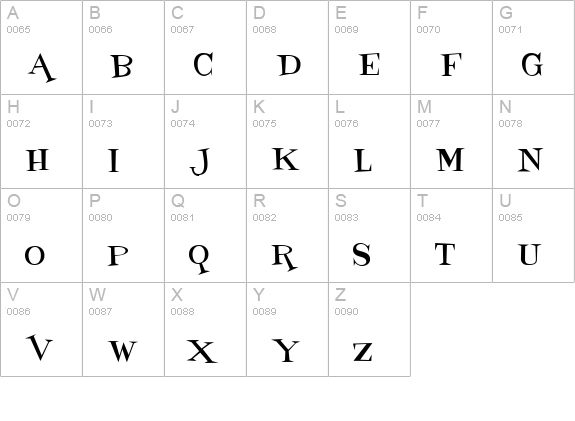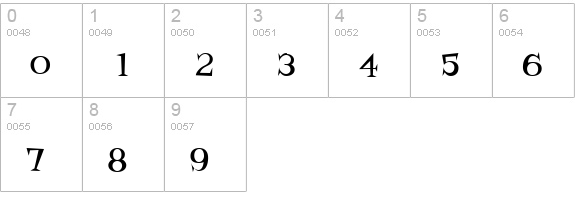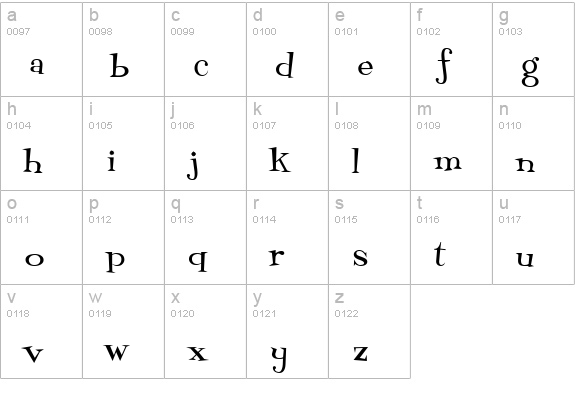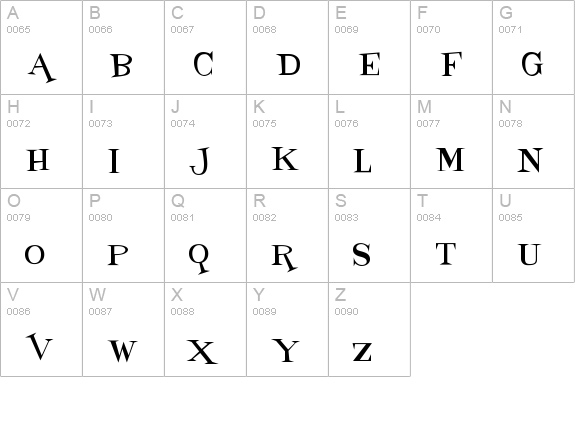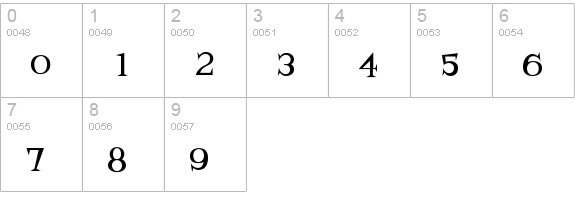
Fontdinerdotcom Loungy Font Details
Fontdinerdotcom Loungy is a stylish and playful font that exudes retro charm and a laid-back vibe. With its smooth curves and quirky details, this font is perfect for adding a touch of fun to your designs. Whether you're working on a poster, logo, or invitation, Fontdinerdotcom Loungy is sure to make a statement. The best part? Fontdinerdotcom Loungy is available for free download at FontsMarket.com! Simply head over to the website and grab this delightful font to enhance your creative projects. Don't miss out on the opportunity to add a touch of whimsy to your designs with Fontdinerdotcom Loungy!